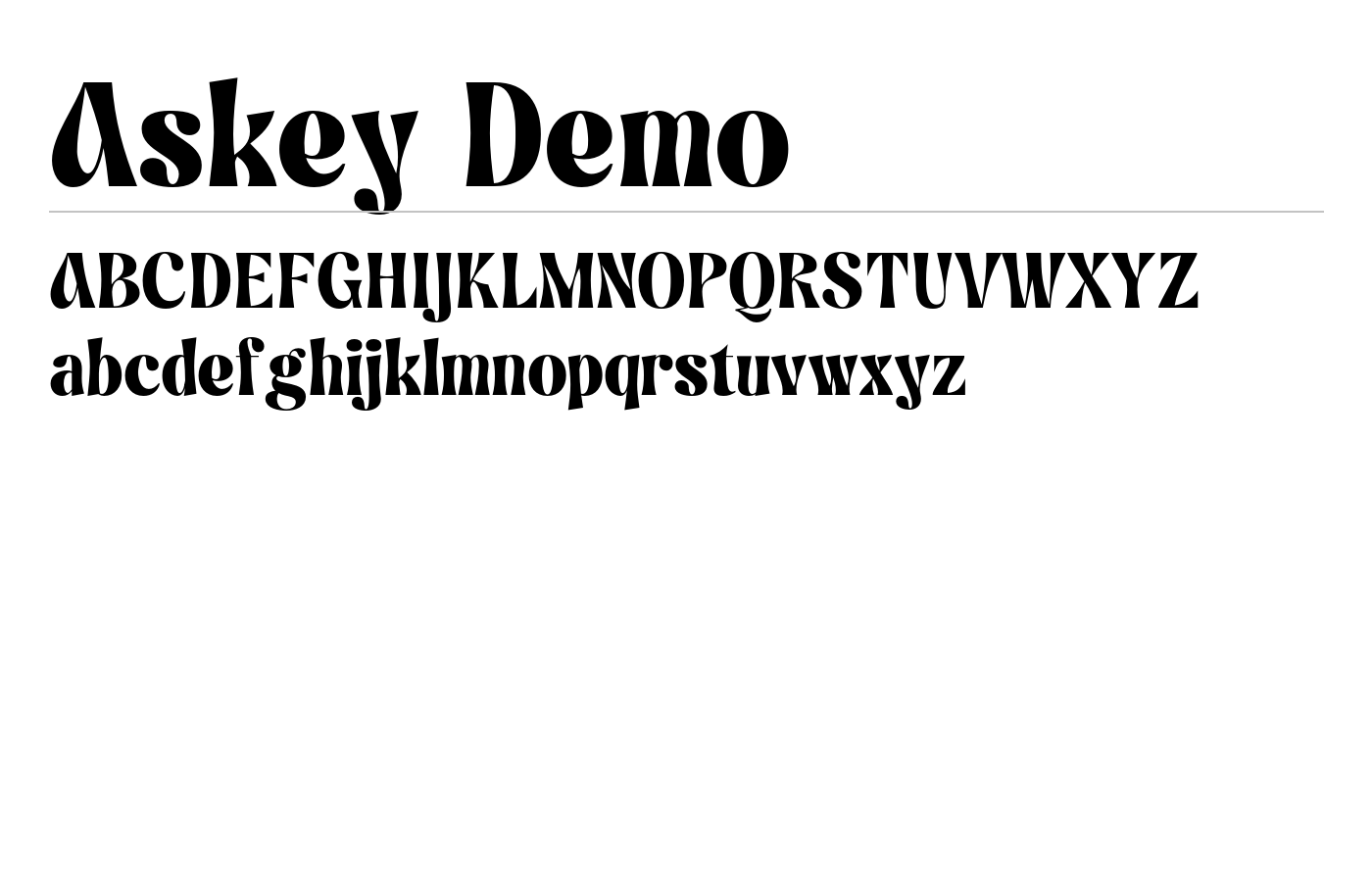
Askey Demo is a bold serif font with strong contrast between thick and thin strokes, featuring unique, slightly quirky letterforms that add personality and charm. Its elevated x-height and playful curves make it ideal for attention-grabbing headlines, branding, or creative projects that want to convey a blend of elegance and individuality. This distinctive font works well where a stylish yet approachable feel is desired, such as in logos, posters, or editorial design.
Askey Demo Font